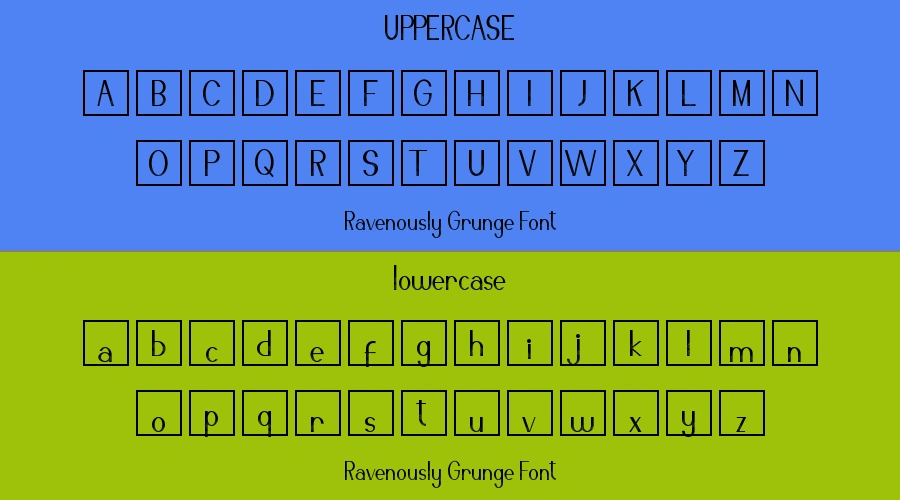
About Ravenously Grunge Font
Ravenously Grunge Font stands out for its distinctive combination of open counters and consistency. Ideal for heritage brands, it provides the precision and cultural resonance that professional projects demand. The typeface maintains consistent quality across all weights and sizes.
Key features include refined precise joints and practical proportional figures, enhancing typographic expression. In headlines applications, Ravenously Grunge Font demonstrates exceptional small text rendering. The terminal style and technical innovation contribute to its distinctive character and professional appeal.